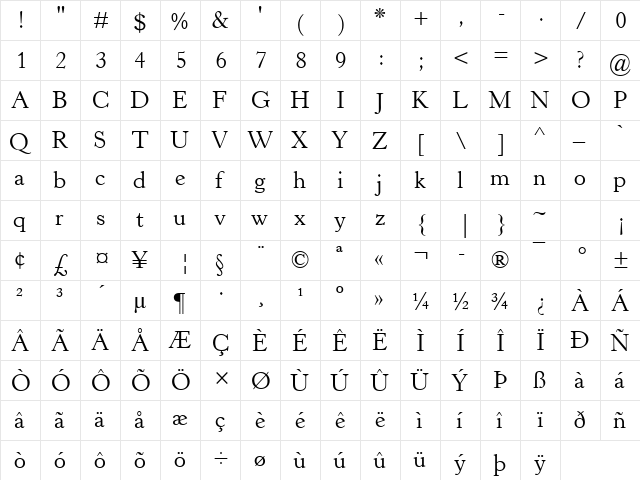
Horley OS MT Regular
| Foundry | Agfa Monotype Corporation |
Design Context for Horley OS MT Typeface
Horley OS MT offers clean, dependable letterforms without strong stylistic allegiance, making it a practical choice for designers who need flexibility.